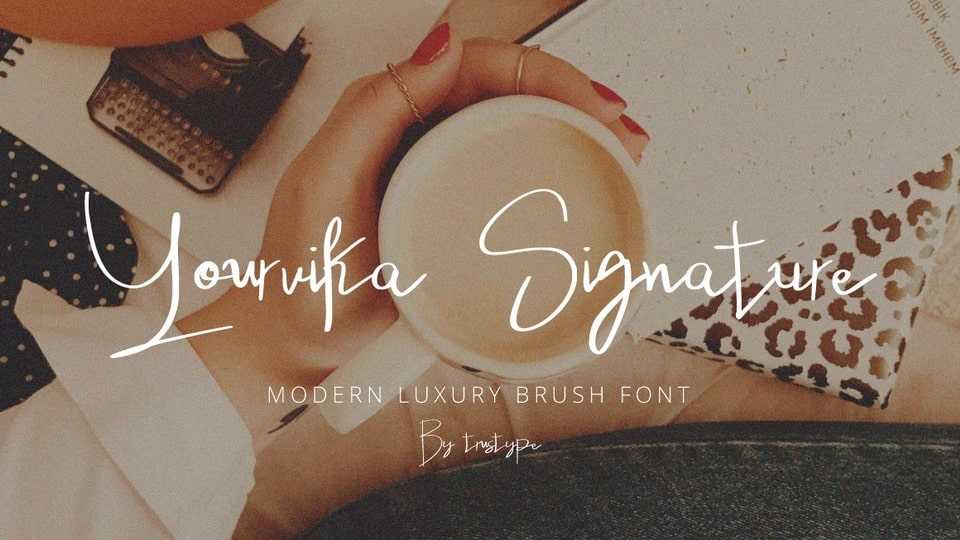
Download Yourvika Signature font, a hand-drawn font with a natural organic, decorative characters and a dancing baseline! The alternative characters were divided into several Open Type features such as Swash
Designer: Muhammad Al Muchlis